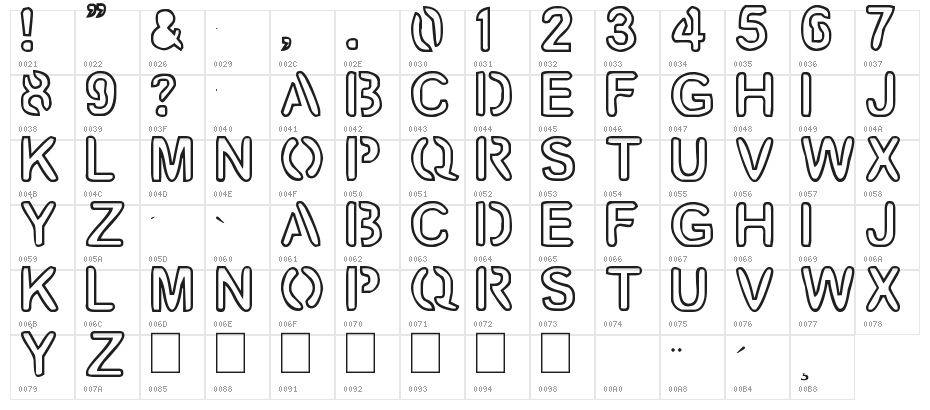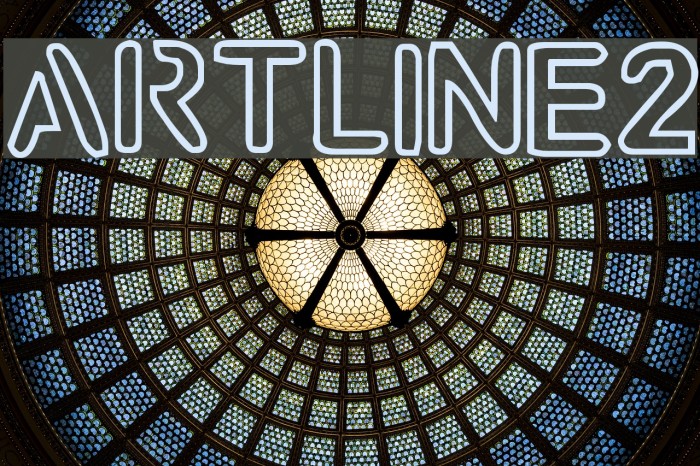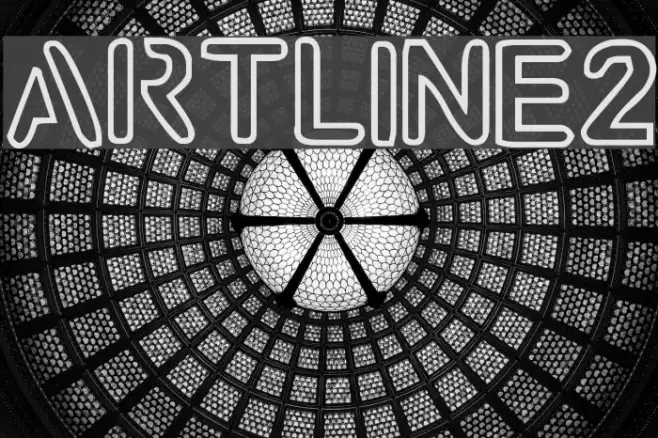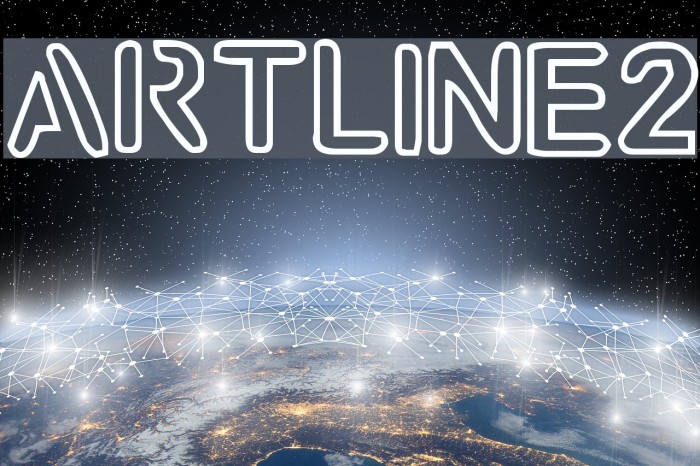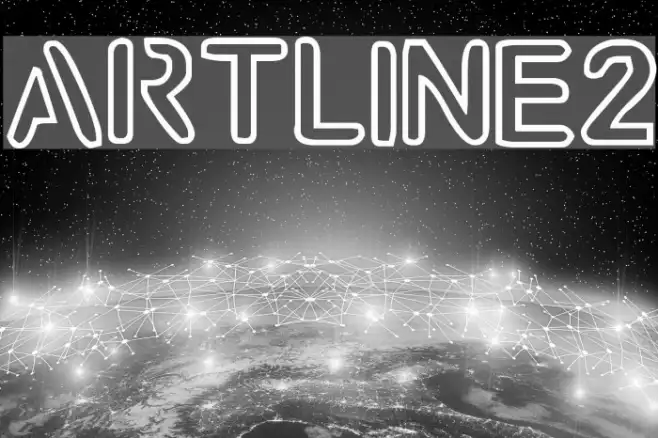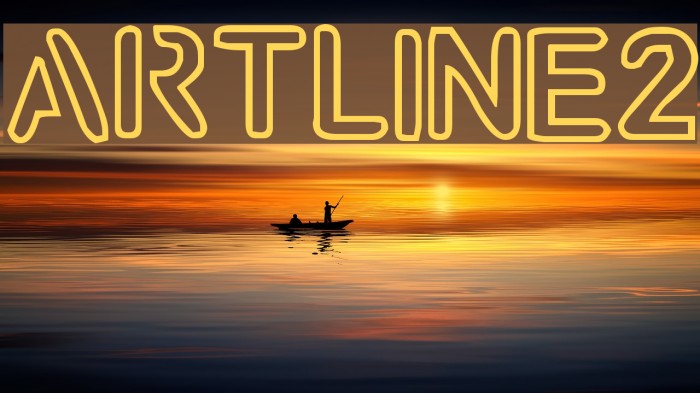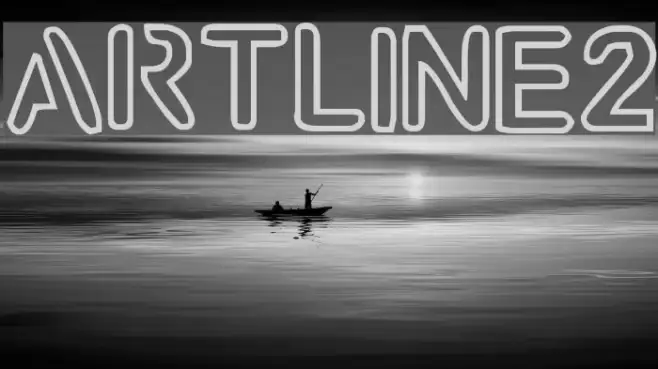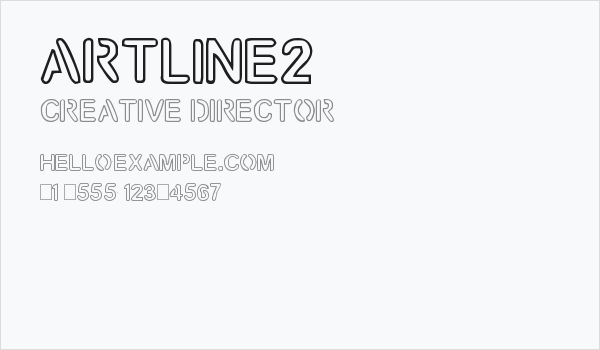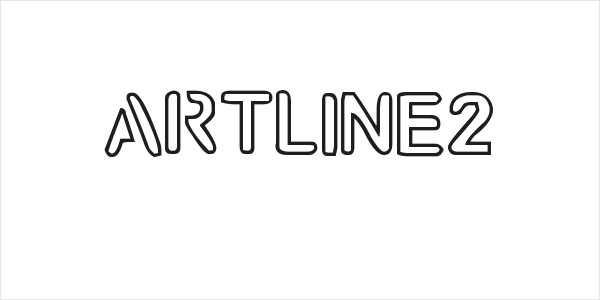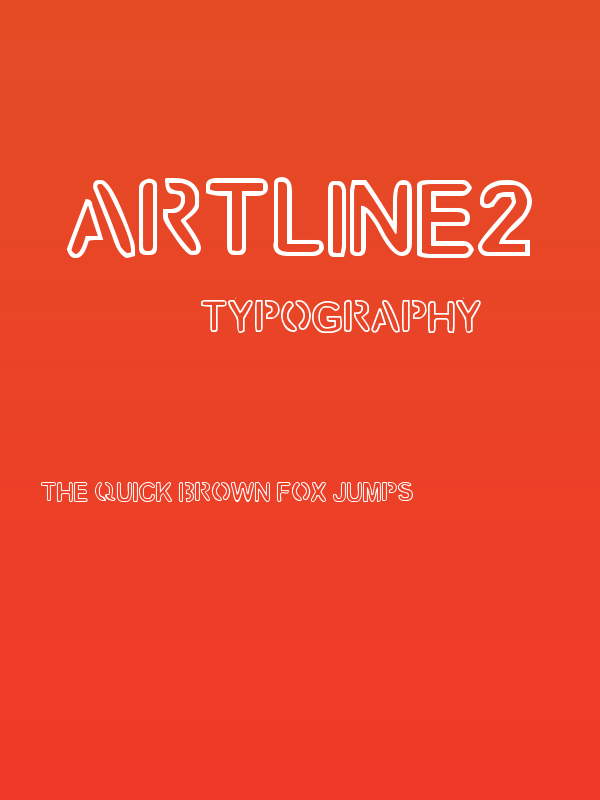
artline2 Font
artline2 Description
This font features a bold, outlined style that gives it a modern and eye-catching appearance. The characters are constructed with a consistent stroke width, creating a uniform and balanced look. The uppercase letters are prominent and well-defined, while the lowercase letters maintain the same structural integrity. Numbers and special characters follow the same design principles, ensuring a cohesive visual experience. The font's geometric shapes and clean lines make it suitable for a variety of design applications, offering a contemporary and dynamic feel.
| Proposed Projects | Ideal for branding, posters, headlines, and digital media where a modern and striking appearance is desired. |